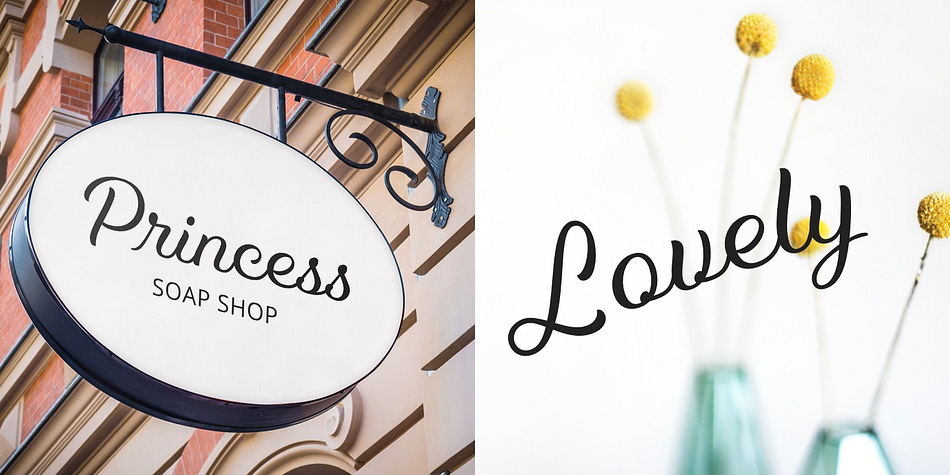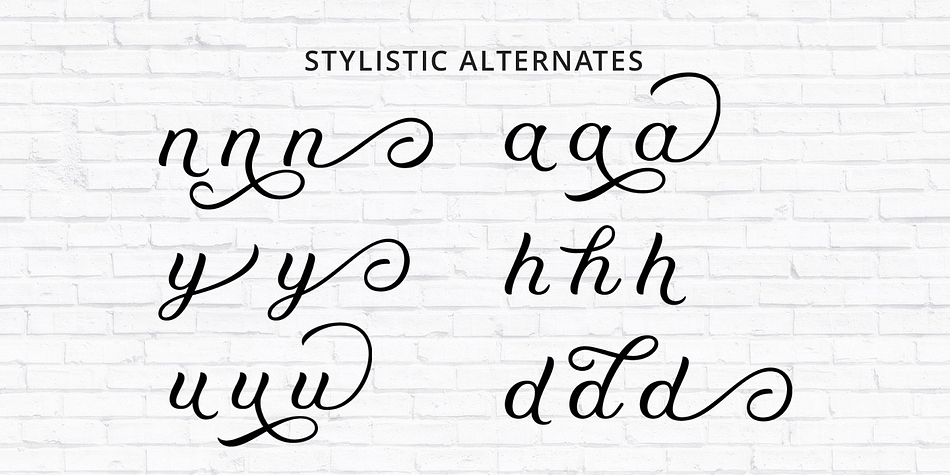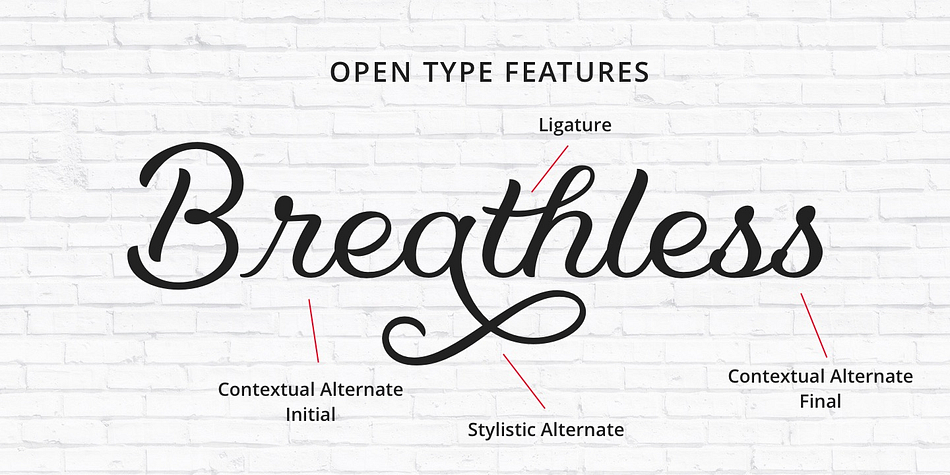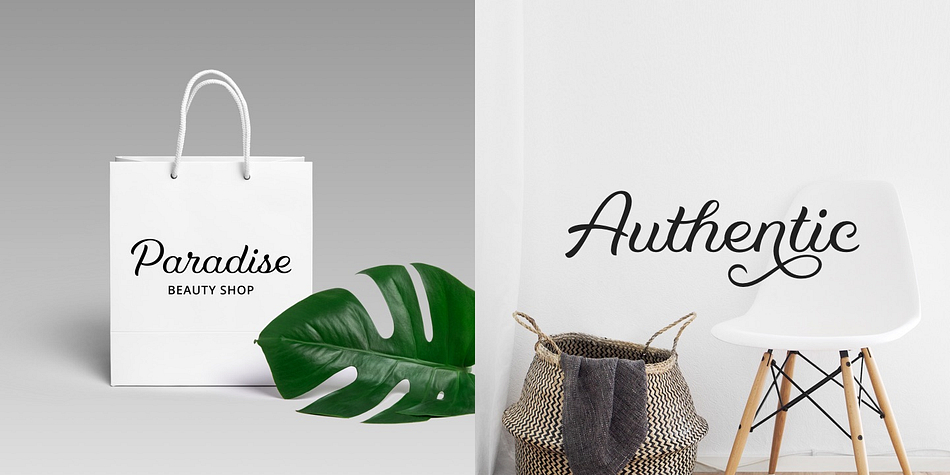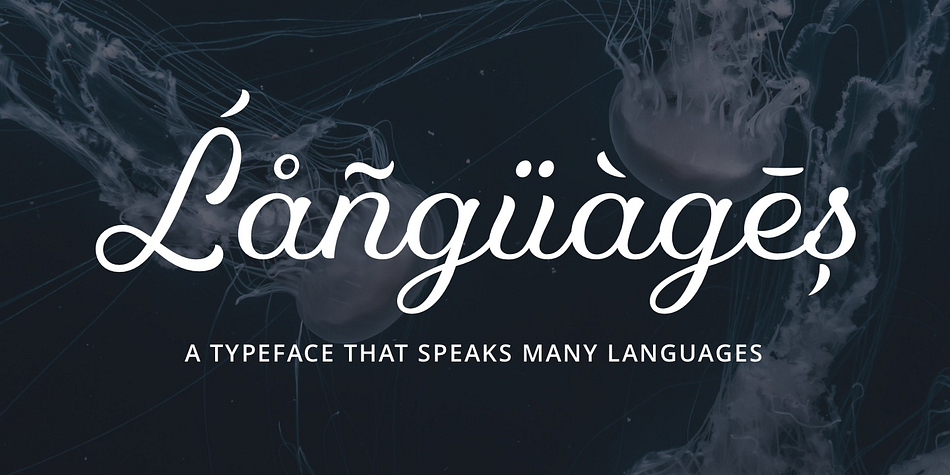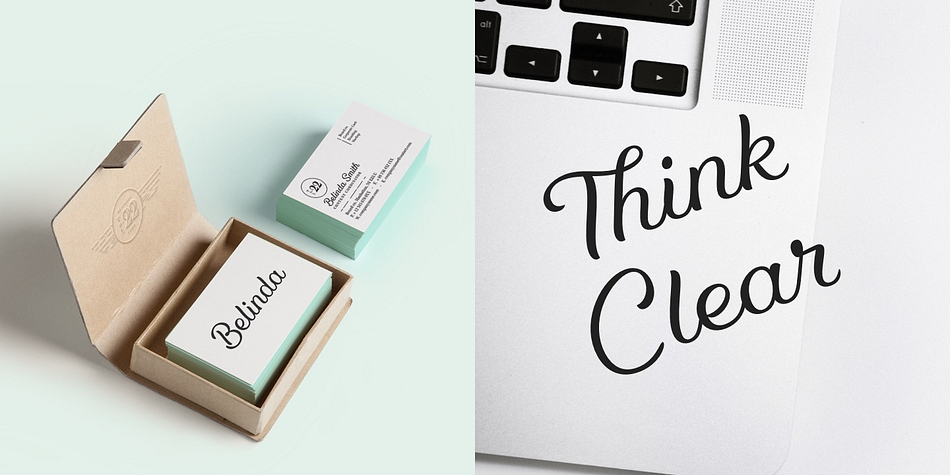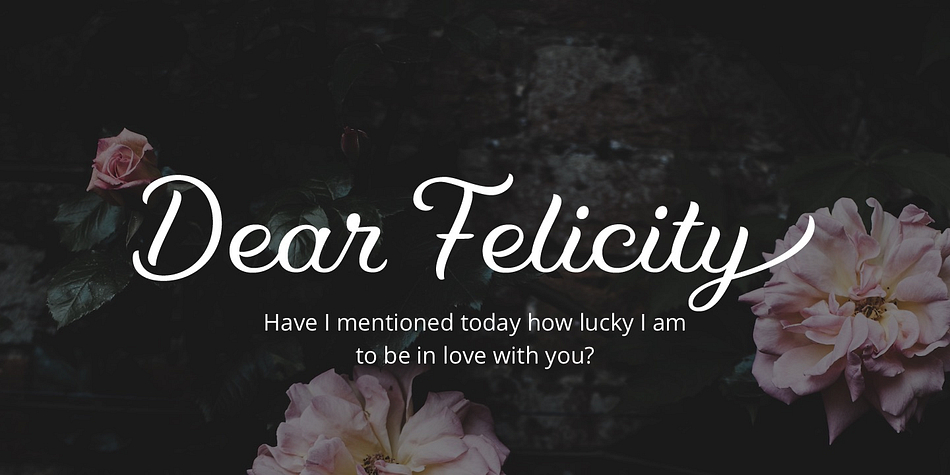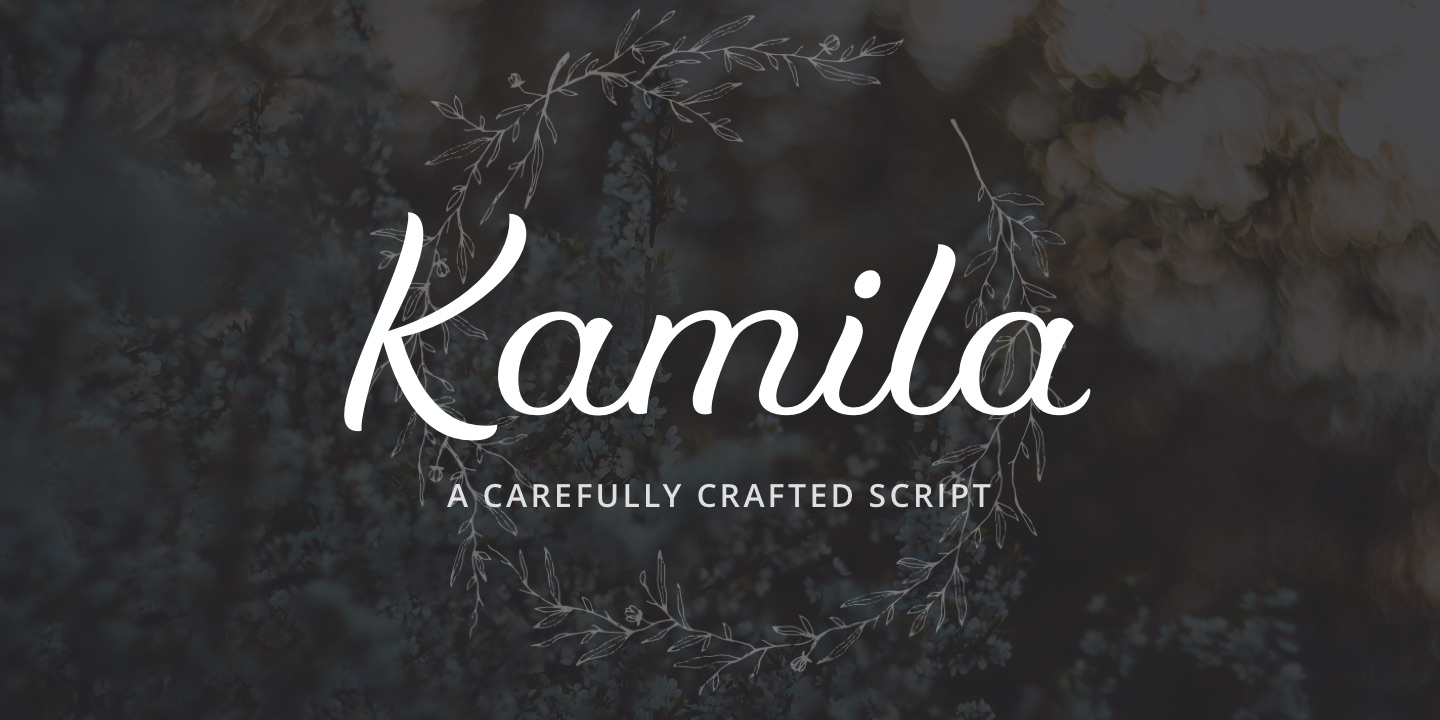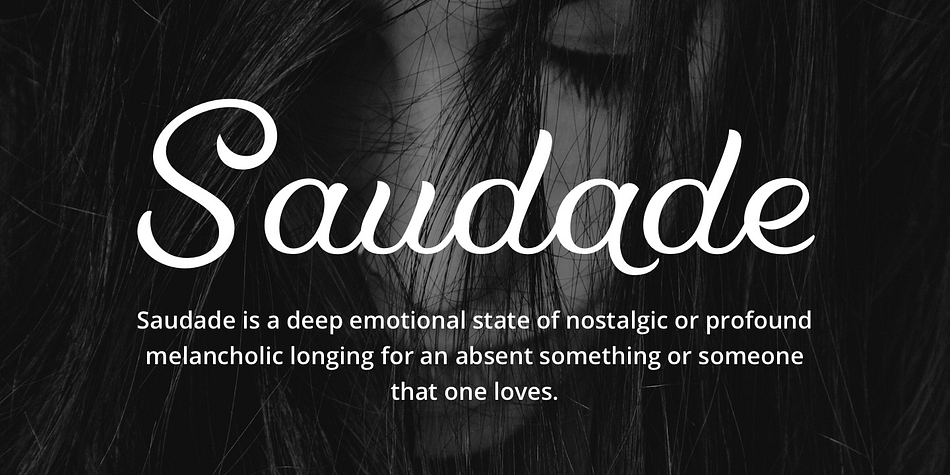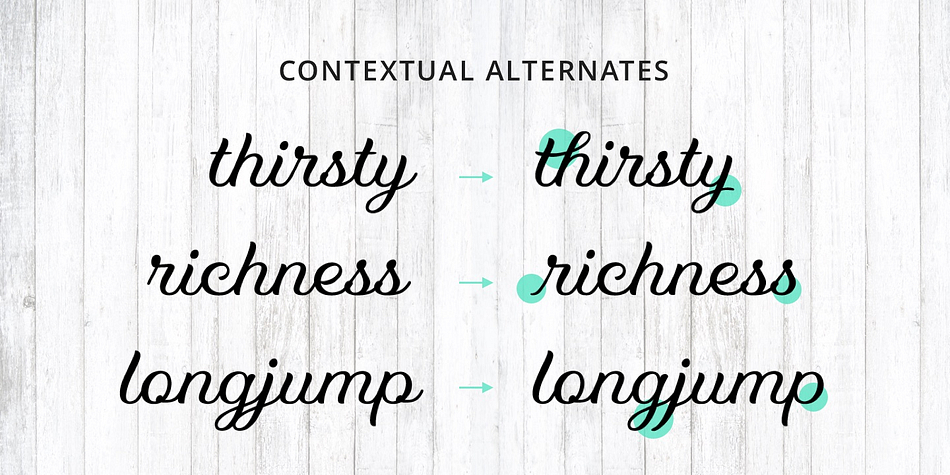
Designed by Vitória Neves, Kamila is a script font published by SevenType.
Kamila is a connected script typeface with an elegant feel. It is based on custom lettering and works well in all letter combinations in a harmonious way.
This typeface has over 900 glyphs and includes 6 sets of stylistic alternates with swashed letters, standard ligatures, ornaments and other alternates for more versatility. Kamila is suited for most latin languages both in its basic and alternate letterforms.
It also has initial and final letters that appear automatically when you type, which makes it feel more similar to writing.
Every letter was carefully crafted and connections are smooth.
Kamila is great especially for titles, posters, magazines, books, wedding invitations and logos.